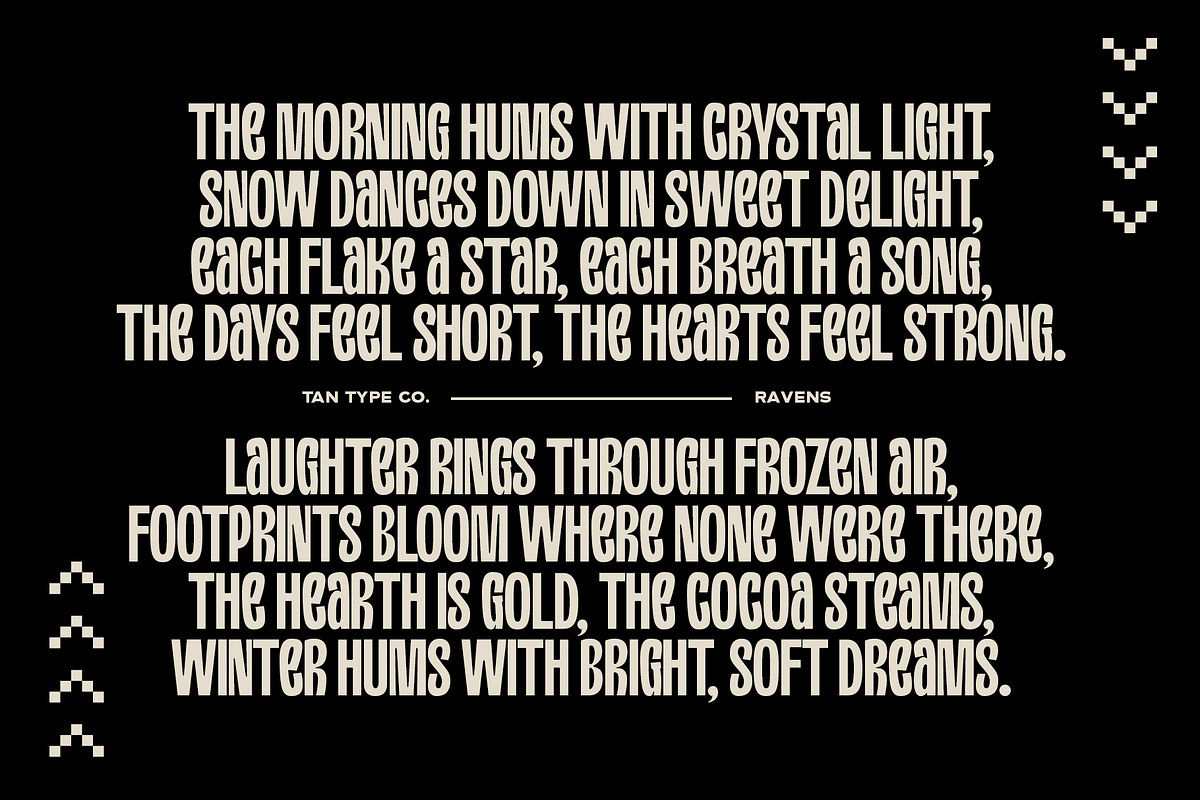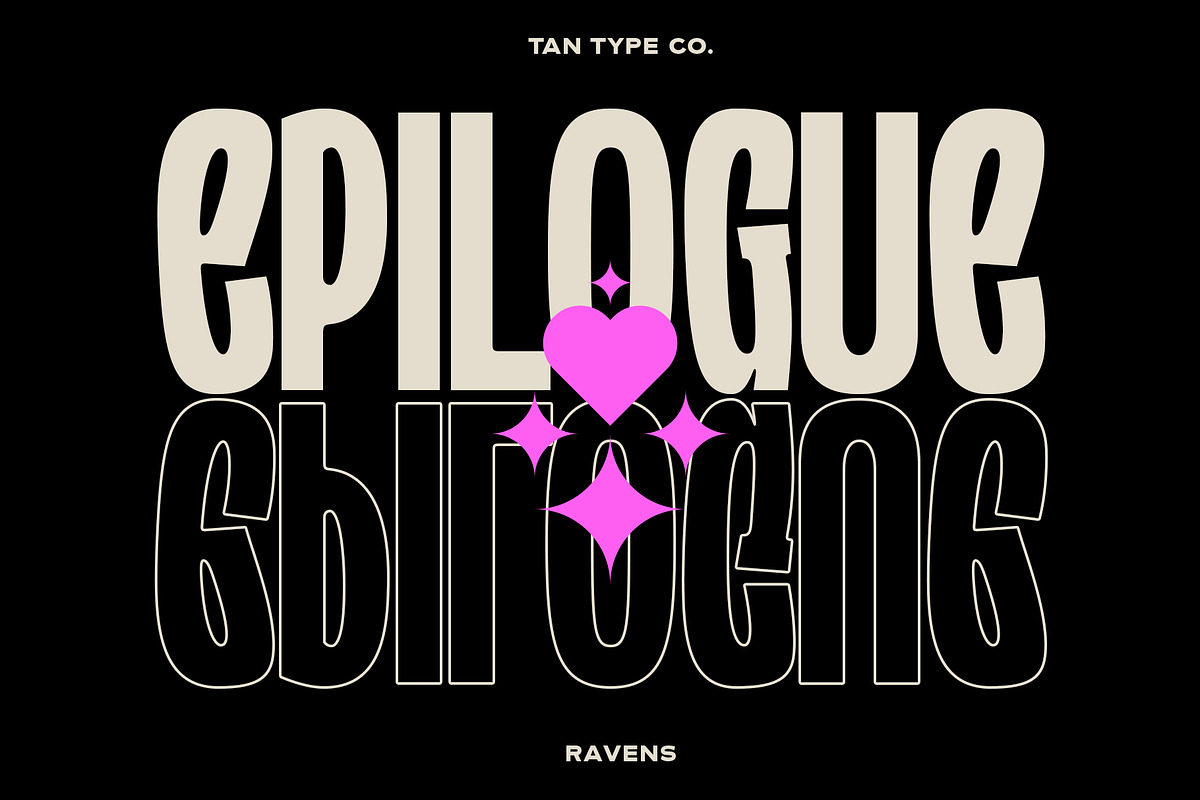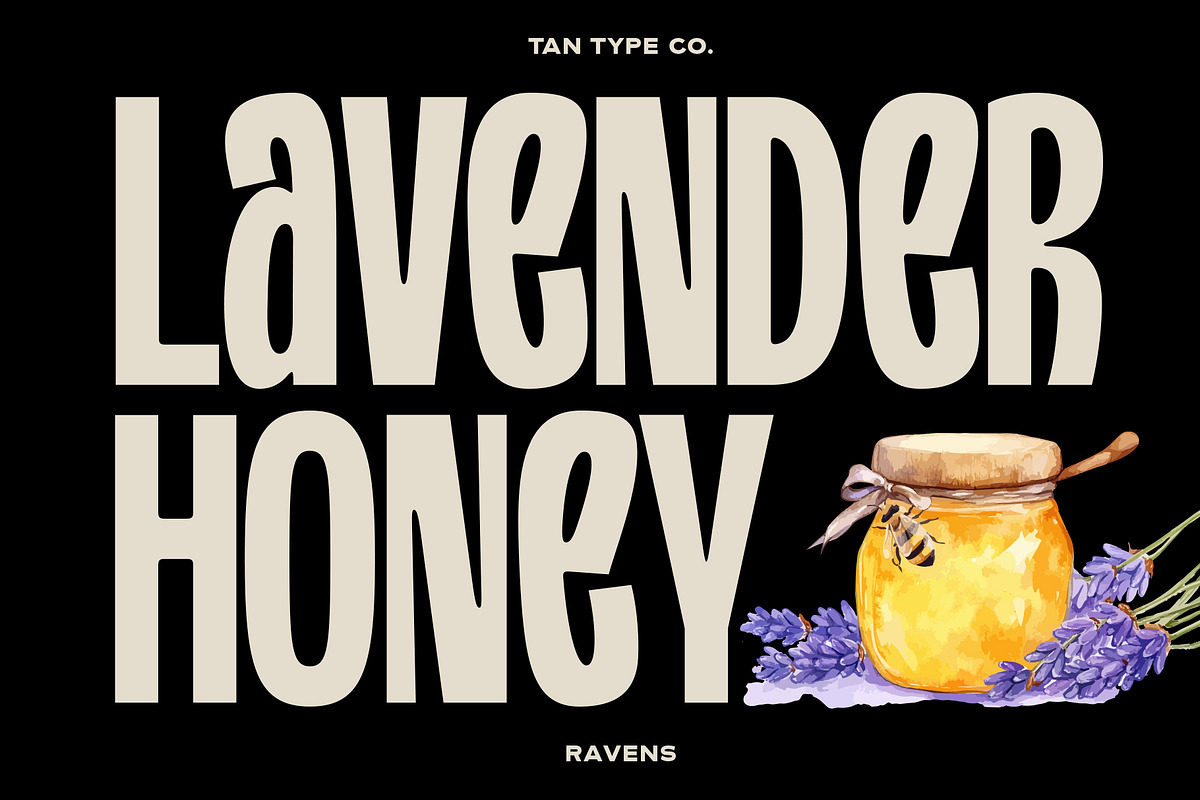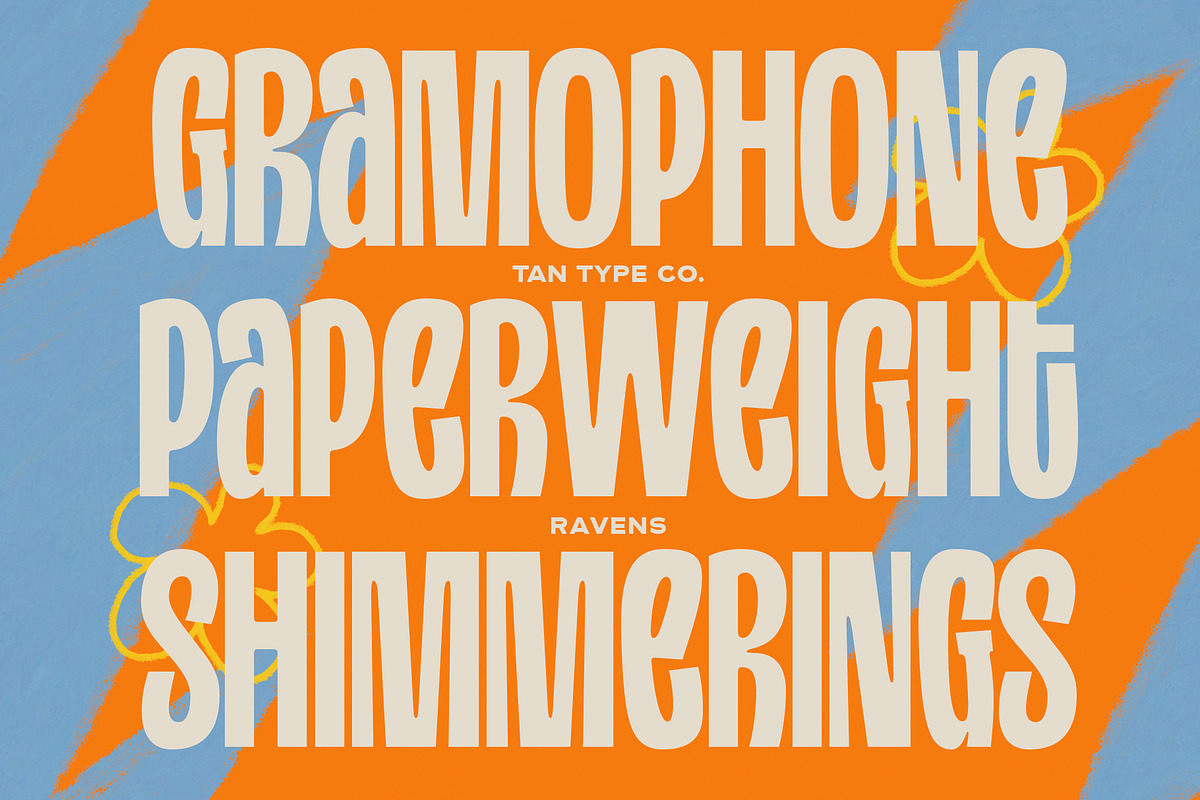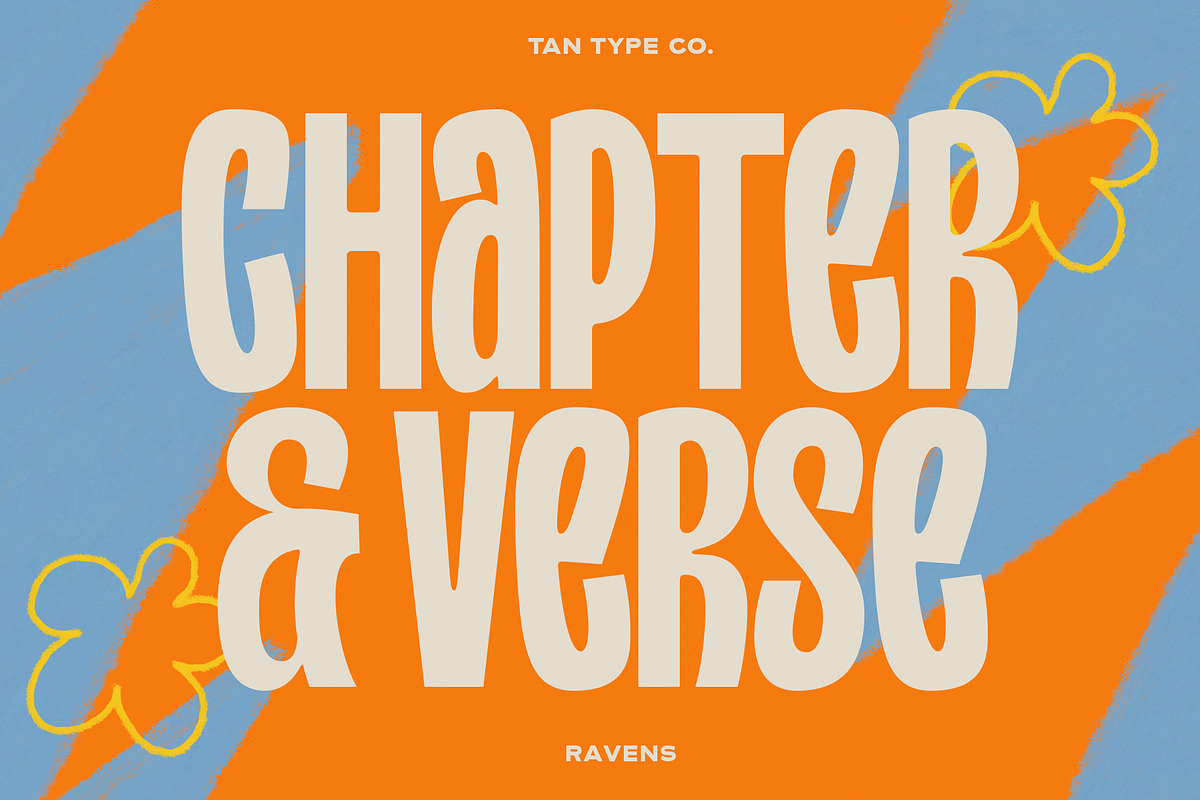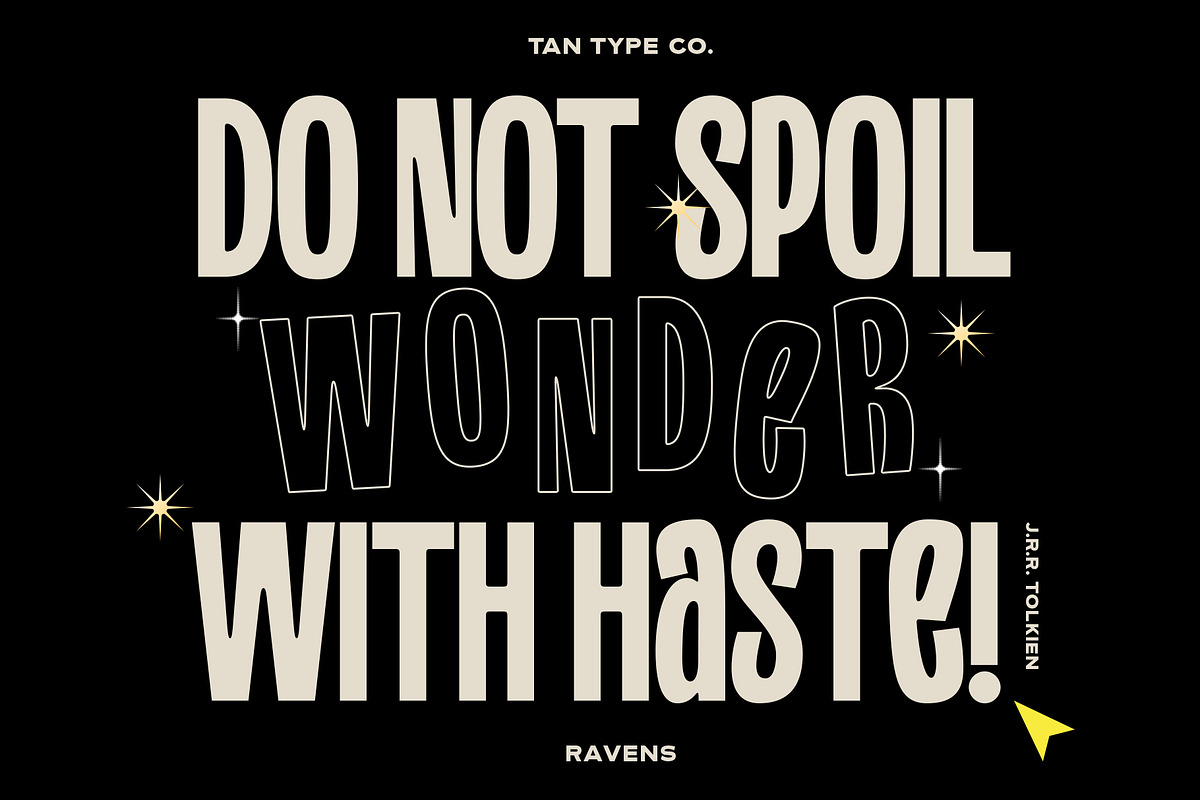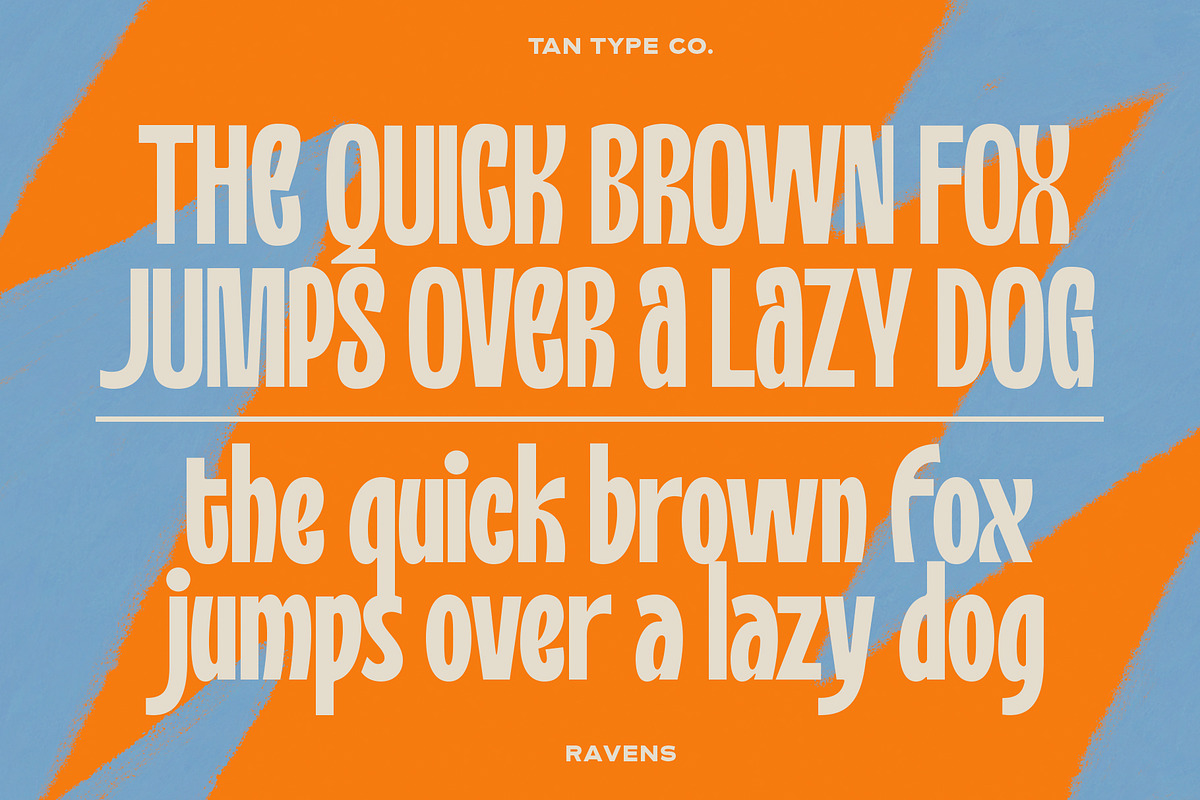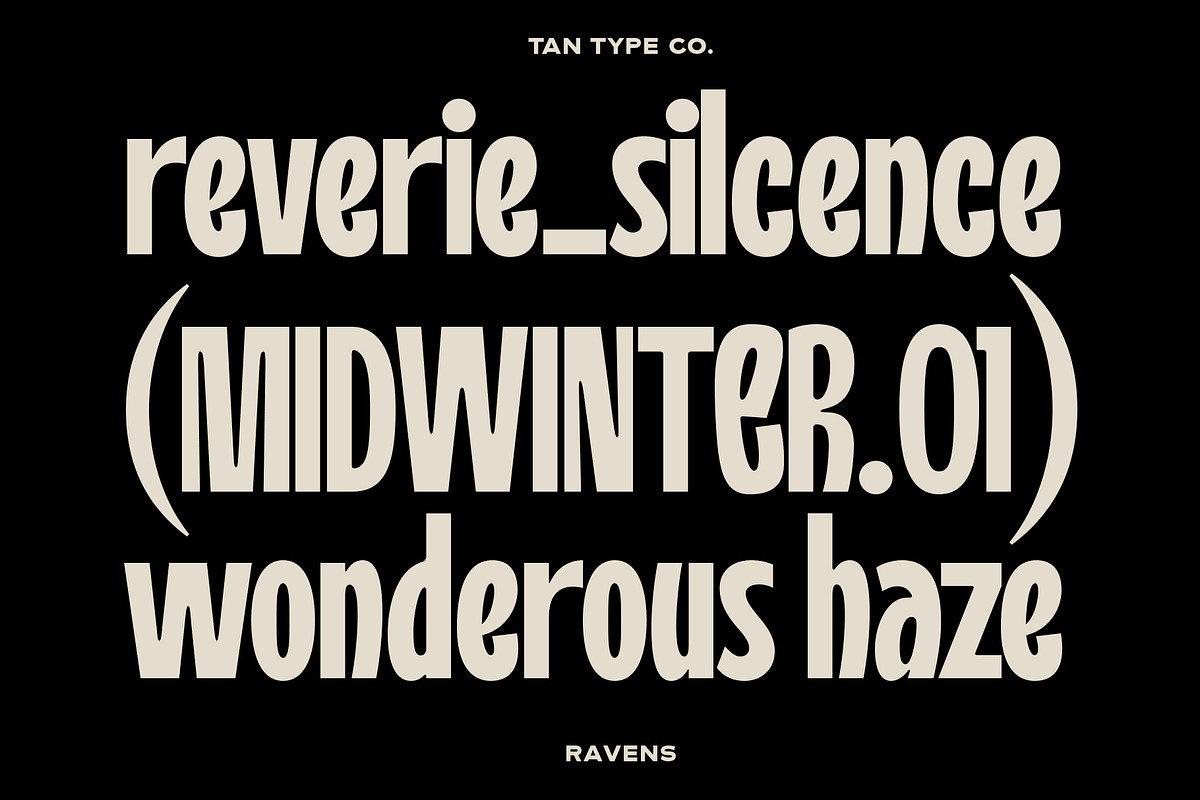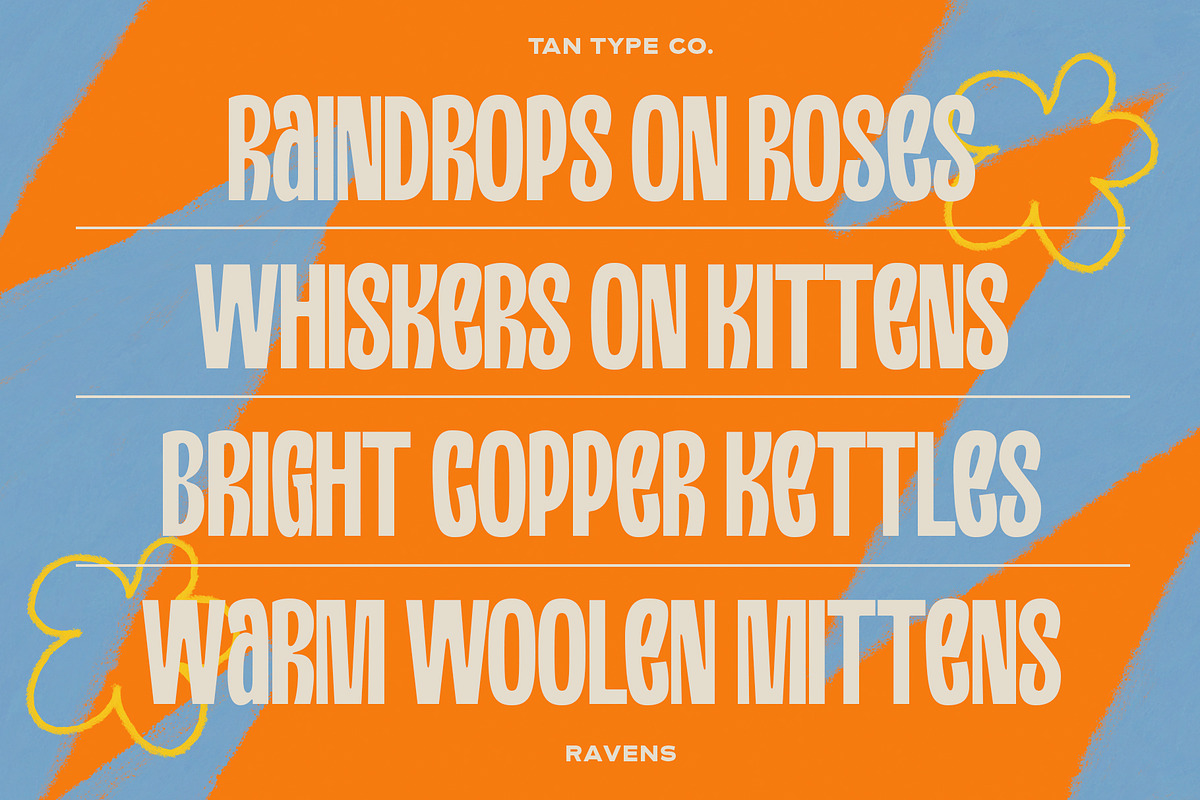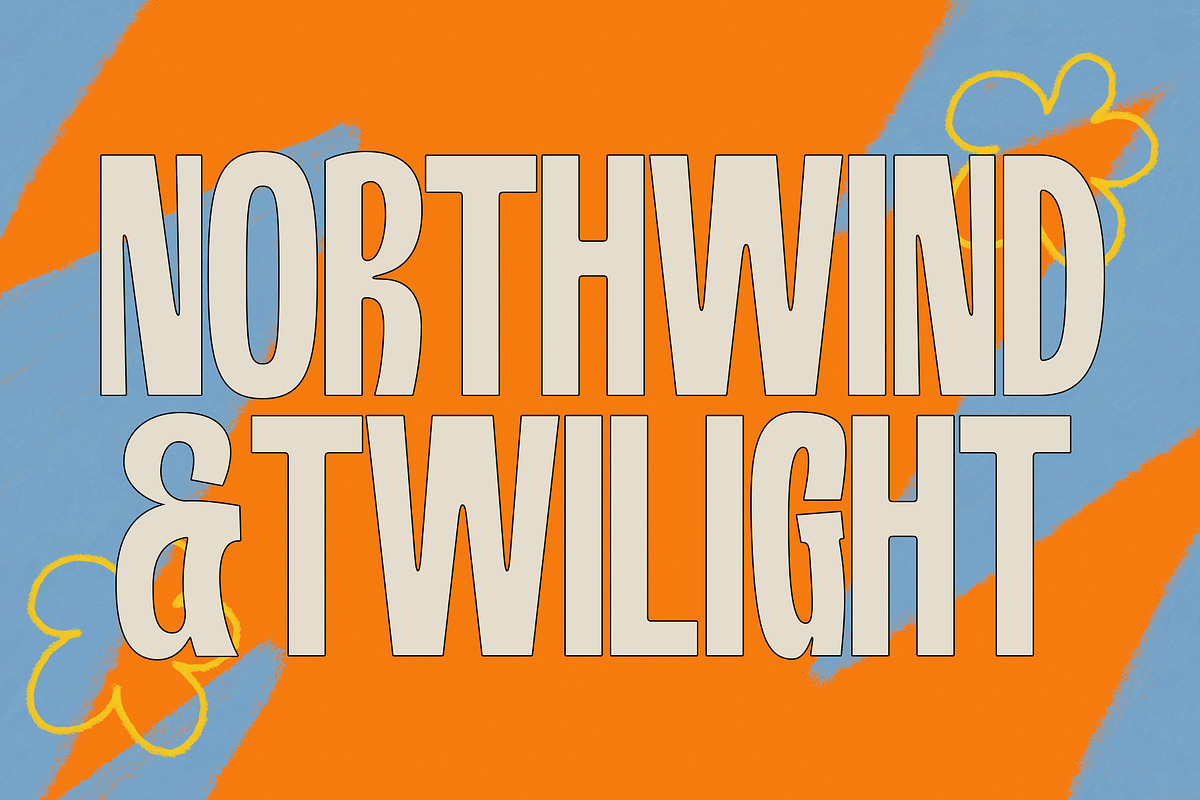
TAN - RAVENS
Ravens is a bold, playful display font with a handmade feel and a subtle geometric structure. Its strong shapes and imperfect details give it a fun, expressive personality while still keeping a clean and modern look.
Designed to stand out, Ravens works great for logos, headlines, packaging, posters, and social media graphics. The balance between bold forms and handcrafted character makes it perfect for designs that want to feel energetic, friendly, and creative.
Ravens is a confident and versatile font made for projects that need impact, charm, and a touch of handmade warmth.